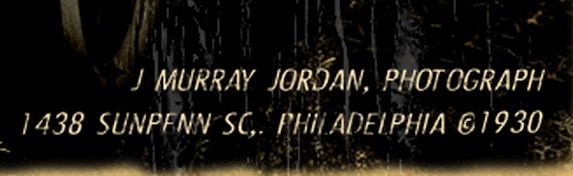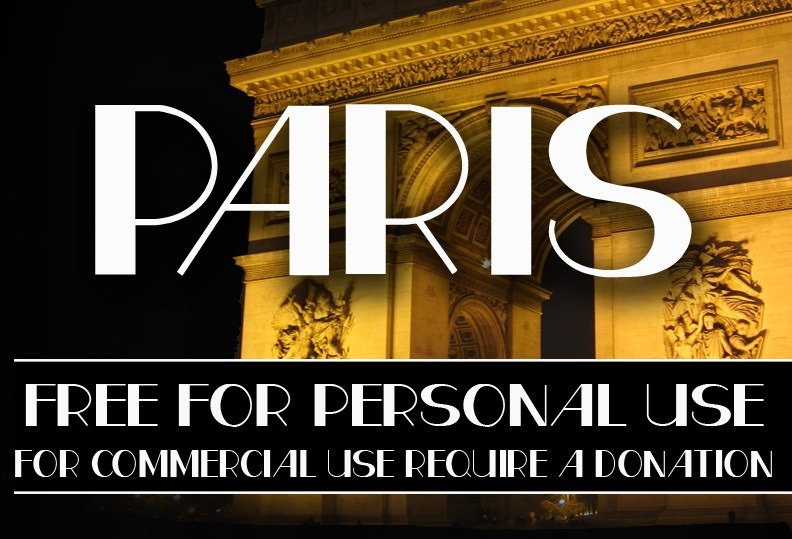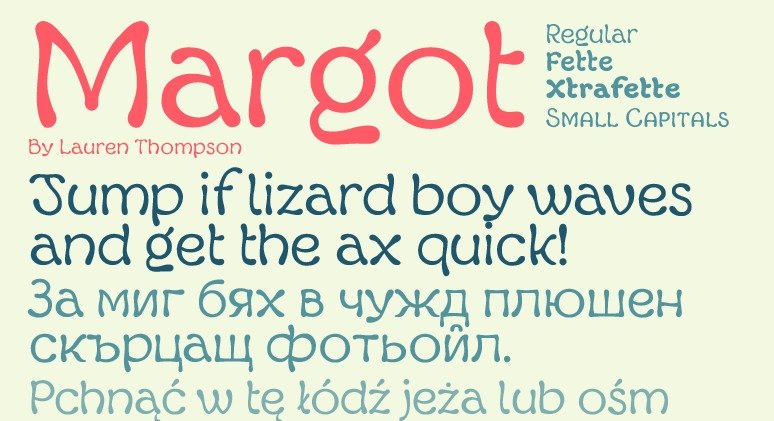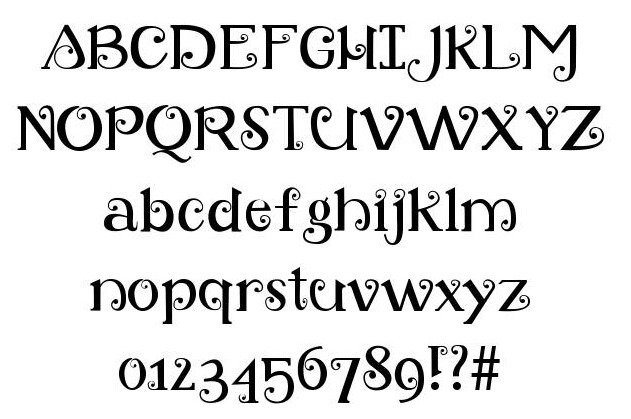
CF Old Photography Credit – MORE INFO
This vintage typeface is intended for personal use. It features narrow uppercase letters, numerals and special characters. These fonts seem to originate in early 40s to 50s.
Margot – MORE INFO
Margot is inspired from early typographies from Greeks and Cyrillic ranges. It features quirky upper and lowercase letters, numbers and special characters. These can be utilized as font designs for period-themed websites.
Retro Loops Font – MORE INFO
The use of this retro Hawaiian font-inspired can be a delight for graphic designers who have vintage-themed website projects. It features upper and lowercase letters with swirling ends, as well as numbers and special characters.
CF Paris – MORE INFO
This romantic-looking classic font design is often seen in archetypal themed headlines, content articles, and section titles in website design. This is freely available for personal use.